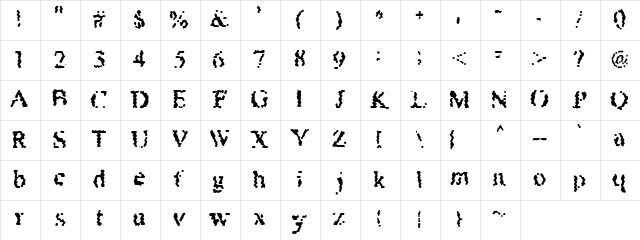
Complete Honeybomb Normal glyph index. Displaying only characters natively supported by Honeybomb Normal font.
Honeybomb is a composed and adaptable typeface that performs quietly and consistently across a wide range of design contexts.